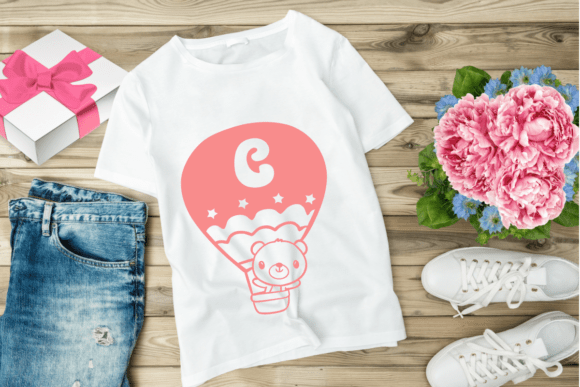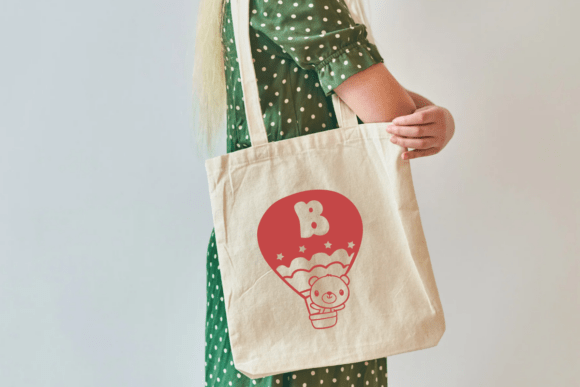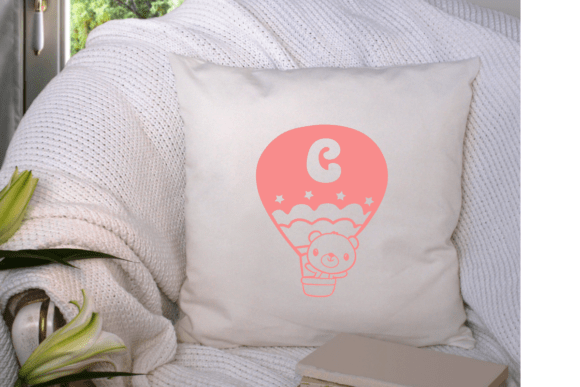
The Cute Balloon Font: A Playful Addition to Your Design Arsenal
I’ll never forget the time I was working on a birthday card design for a client, and I just couldn’t find the right font to match the playful vibe of the project. The client wanted something fun, bubbly, and Instagram-worthy, but my usual go-to fonts just weren’t cutting it. That’s when I stumbled upon the Cute Balloon font, and let me tell you, it was love at first sight! 💕
As I started experimenting with the font, I realized that it was more than just a pretty face. Cute Balloon is a versatile decorative font that can add a touch of whimsy to a wide range of design projects, from notes and diaries to banners, mugs, and social media posts.
What I Love About Cute Balloon ✨
- Its playful, bubbly personality is perfect for adding a touch of fun to any design project 🎉
- The font is incredibly versatile and can be used for a wide range of applications, from digital to print 📊
- Cute Balloon is easy to read, even in smaller sizes, making it perfect for body text or captions 📚
- The font comes with a range of OpenType features, including glyphs and stylistic alternates, which can add an extra layer of creativity to your designs 🎨
- While Cute Balloon is a beautiful font, it’s not suitable for body text or long-form content. It’s best used as an accent font to add visual interest ⚠️
- Some of the glyphs and special characters can be a bit finicky, so be prepared to do some experimentation to get them to work correctly 🕵️♀️
The Designer Inspiration Behind Cute Balloon
Cute Balloon was designed with the intention of creating a font that was both playful and elegant. The designer wanted to create a font that would add a touch of whimsy to any design project, while still being easy to read and versatile. The result is a font that’s perfect for designers, crafters, and creative hobbyists who want to add a little extra something to their designs.
Q: What is Cute Balloon, and what can I use it for?
A: Cute Balloon is a decorative font that can be used for a wide range of design projects, including notes, diaries, greeting cards, banners, mugs, social media posts, and more!
Q: Is Cute Balloon easy to read?
A: Yes, Cute Balloon is surprisingly easy to read, even in smaller sizes. However, it’s best used as an accent font to add visual interest, rather than for body text or long-form content.